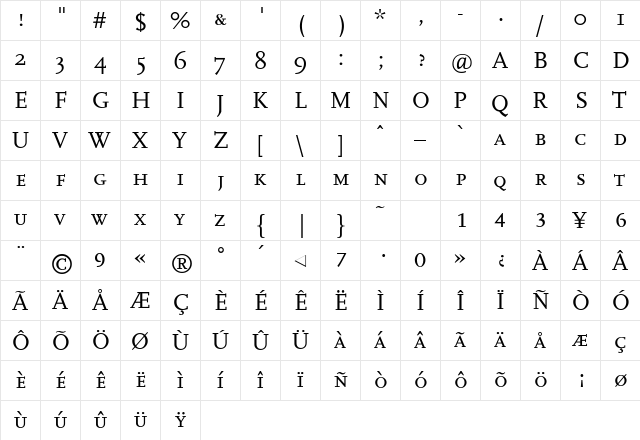
FFScalaCaps Regular Font Preview
FFScalaCaps Regular
Design Context for FFScalaCaps Typeface
FFScalaCaps takes a measured approach to typography — its balanced proportions and neutral character make it a reliable workhorse for both digital and print work.
Pro Tip: Use FFScalaCaps in both headline and body roles to test its range before committing to a single application.